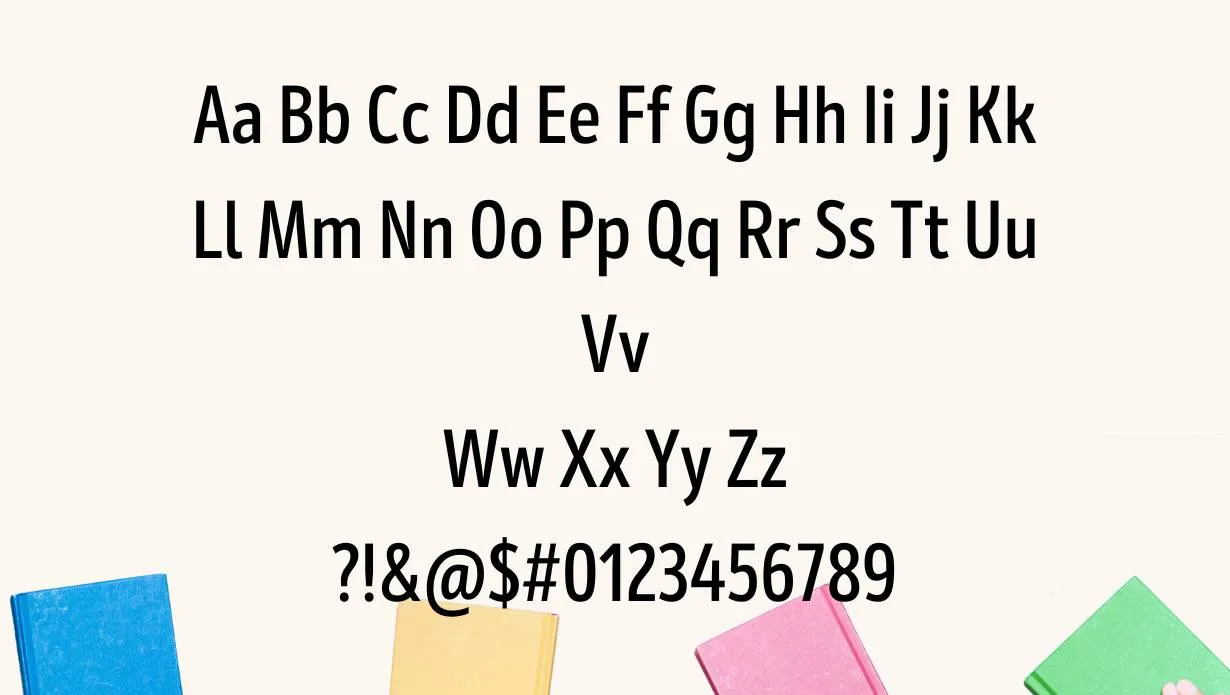
Mozer Font is a dynamic and bold typeface with a strong and impactful presence. Its robust lines and commanding design make it suitable for posters, branding, and attention-grabbing headlines.
| Designer | Ani Petrova, Mirela Belova |